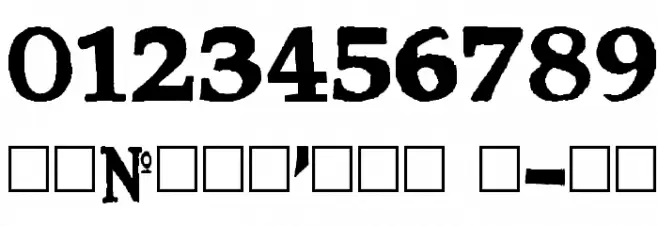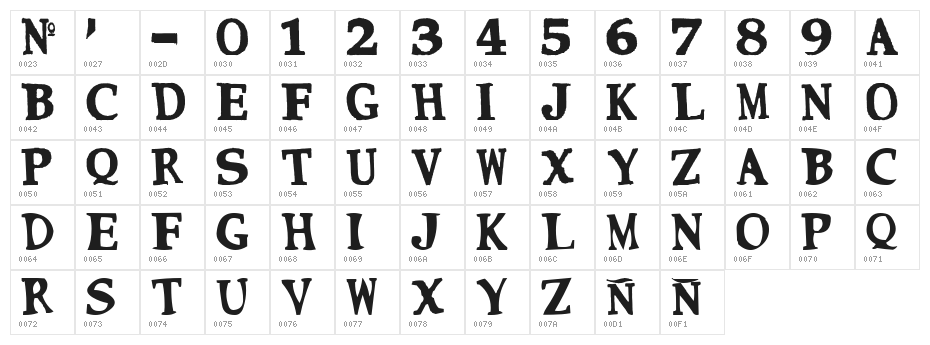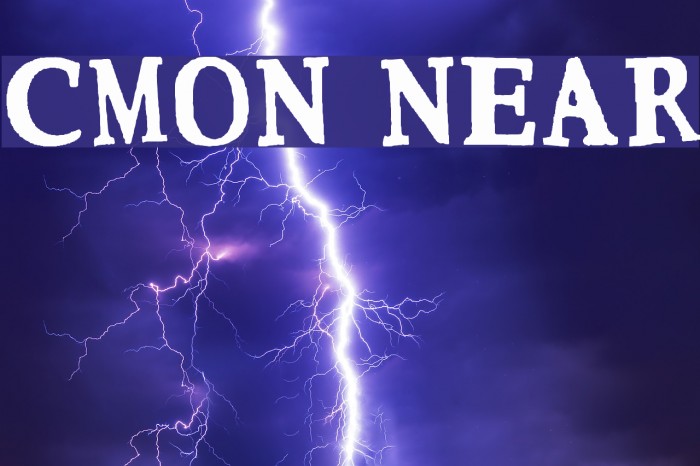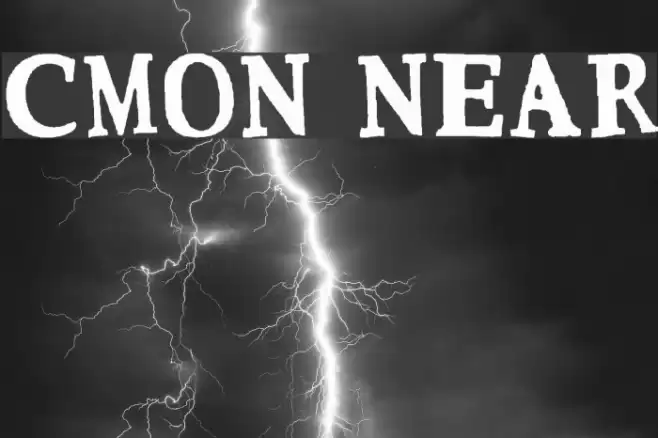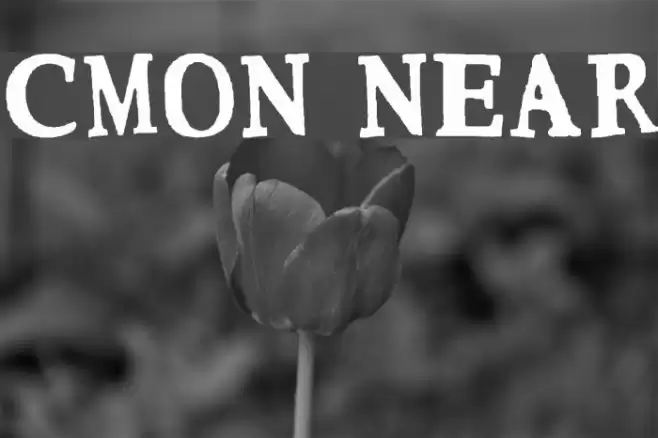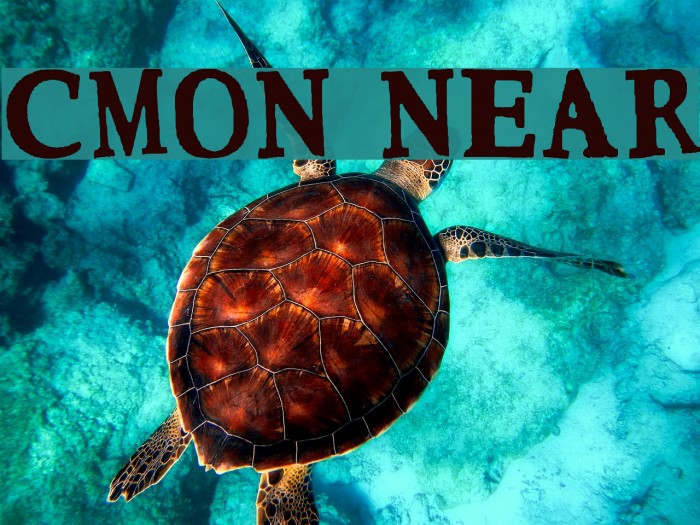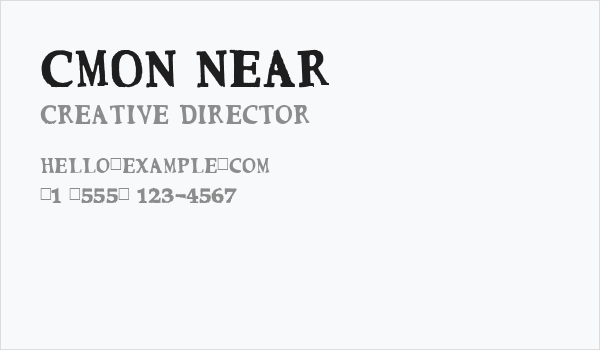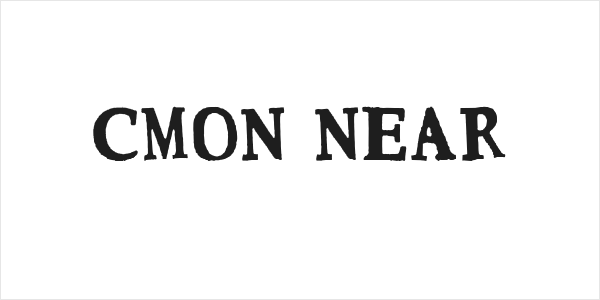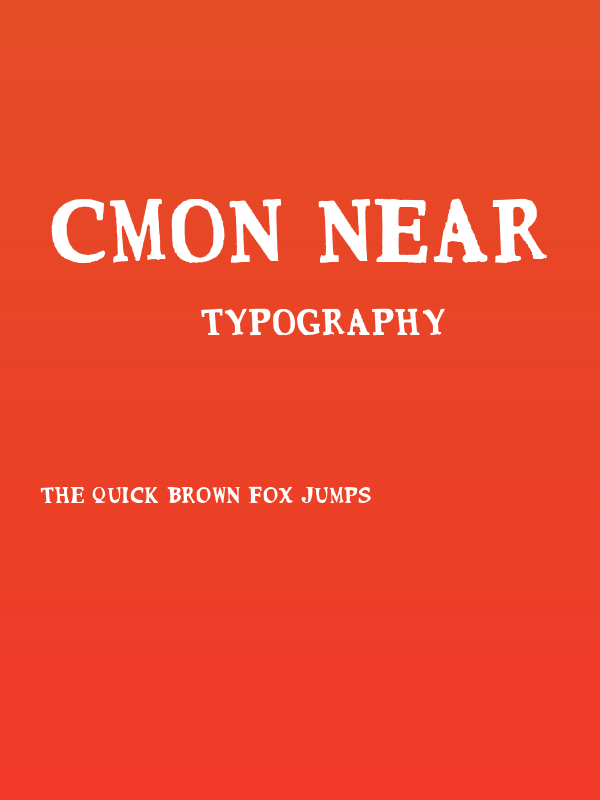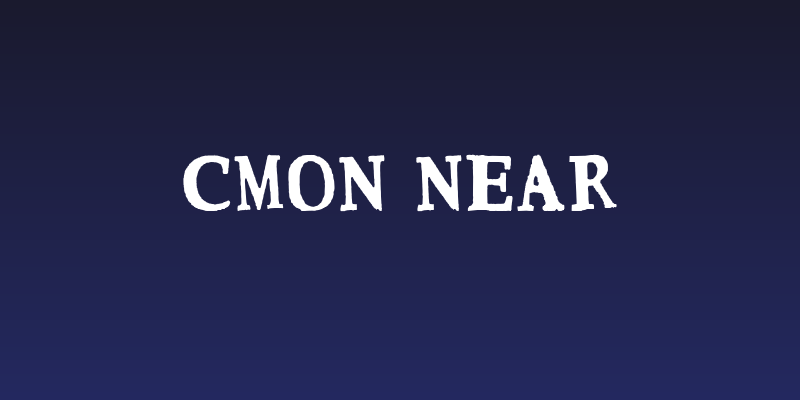
CMON NEAR Font
CMON NEAR Description
This font exhibits a bold and rugged style, characterized by its thick, uneven strokes and slightly distressed appearance. The uppercase letters have a strong presence, with a slight inward curve on some strokes, giving them a unique and handcrafted feel. The lowercase letters maintain this boldness, ensuring consistency across the typeface. Numbers are equally robust, with a distinct weight that makes them stand out. The special characters retain the same boldness and rugged texture, making this font suitable for projects that require a strong, impactful visual statement.
| Proposed Projects | Ideal for posters, branding, logos, and any design that requires a strong, impactful typeface. |